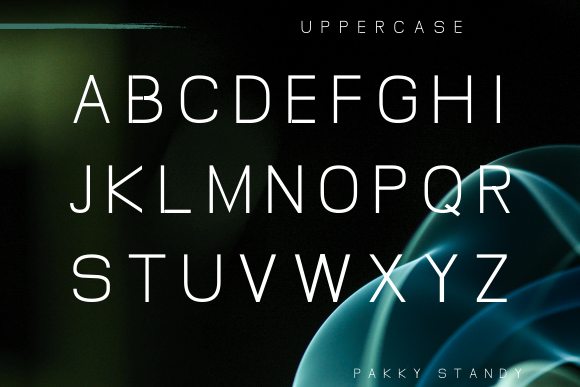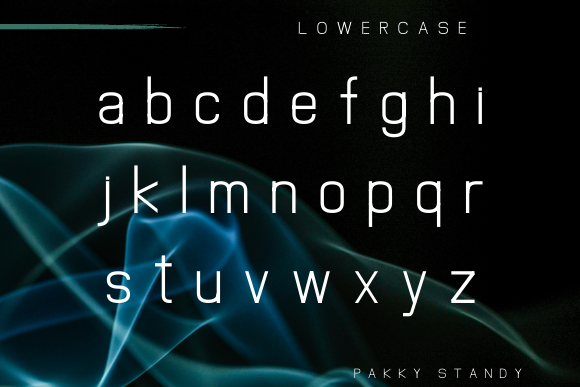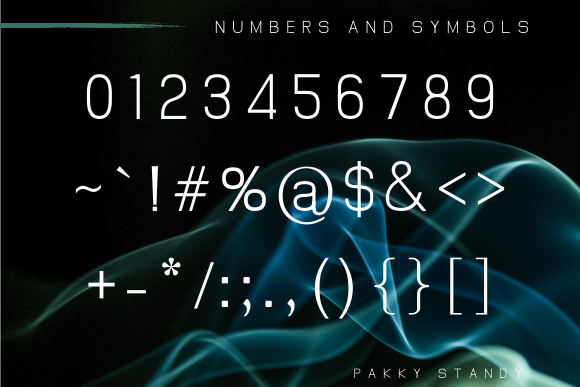
Introduction to Pakky Standy Font
Have you ever been stuck on a creative project, scrolling through font options for hours, trying to find the perfect fit? It’s a familiar feeling for many designers. But what if you stumbled upon a font that not only fits your design aesthetic but also elevates your entire project? Welcome to the world of Pakky Standy Font, a minimalist sans serif font that’s about to become your new go-to design resource.
With its simple strokes and clear pattern, Pakky Standy Font is a high-quality design element that’s perfect for various creative ideas, from digital design to presentations and invitation cards. Whether you’re working on a free download or a paid project, this font is sure to bring your vision to life. And the best part? Its transparent background makes it easy to incorporate into any design, giving you complete creative freedom.
As a designer, you know the value of having a reliable design resource at your fingertips. Pakky Standy Font is a game-changer, offering a level of sophistication and elegance that’s hard to find in other fonts. So why settle for anything less? Discover the power of Pakky Standy Font and take your designs to the next level.
Key Features of Pakky Standy Font
- Pakky Standy Font is a unique and versatile design resource ideal for creative projects, offering a modern and sleek aesthetic.
- One of the unique characteristics of Pakky Standy Font is its ability to add a touch of sophistication and elegance to any design, making it a valuable resource for designers and artists.
Honest Review: Pakky Standy Font
I recently stumbled upon the Pakky Standy Font while searching for a free download to add some flair to a creative project. At first glance, I was impressed by the clean and minimalist design of the font. ✨ It’s perfect for any project that requires a simple, yet elegant touch.
One of the standout features of this font is its ability to be used on a transparent background, making it a great design resource for any project. The high quality of the font is also evident in its crisp and clear lines.
Here are some pros and cons I noticed during my review:
- ✨ The font is highly customizable, making it easy to use in a variety of creative projects.
- ✨ The transparent background feature is a game-changer for designers.
- ⚠️ The font may not be suitable for projects that require a bold or dramatic font.
Overall, I’m impressed with the Pakky Standy Font and would highly recommend it to designers looking for a simple yet effective font for their next creative project.
Tips for Getting the Most Out of Pakky Standy Font
For a high-quality look, use Pakky Standy Font with a transparent background. This will help your text stand out in creative projects.
Pakky Standy Font is suitable for various design projects, including logos, social media graphics, and presentations. Its unique design makes it an excellent choice for creative projects that require a modern and professional look.